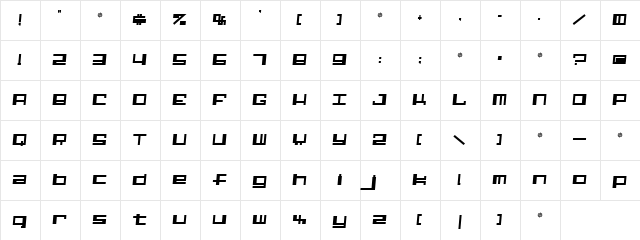
Alphastep i version Regular Free Font
Alphastep  i version Regular
Design Context for Alphastep i version
Alphastep i version is a composed and adaptable typeface that performs quietly and consistently across a wide range of design contexts.